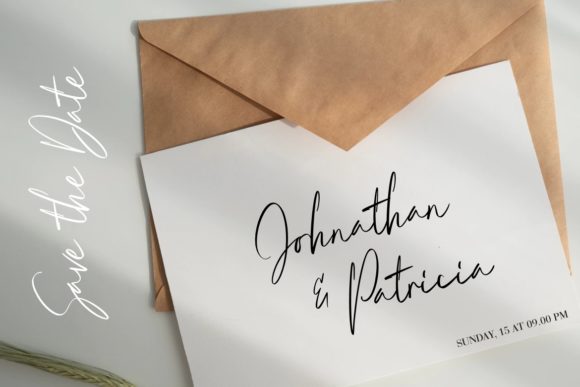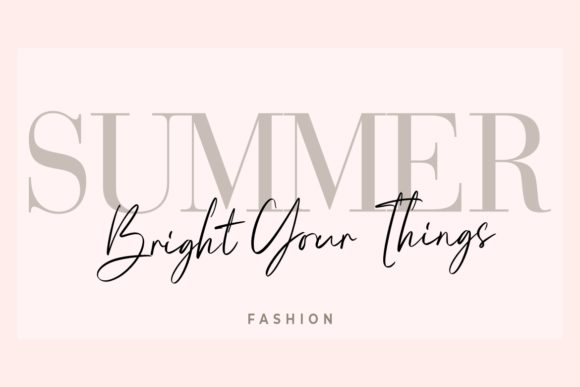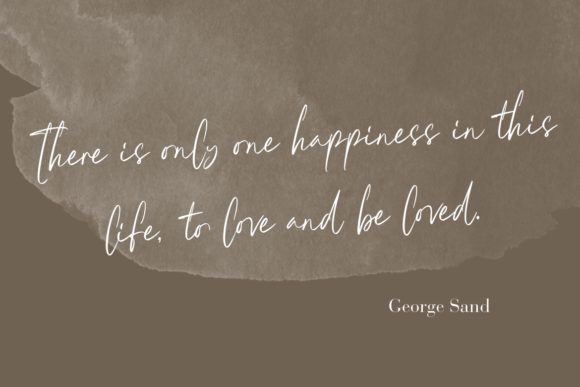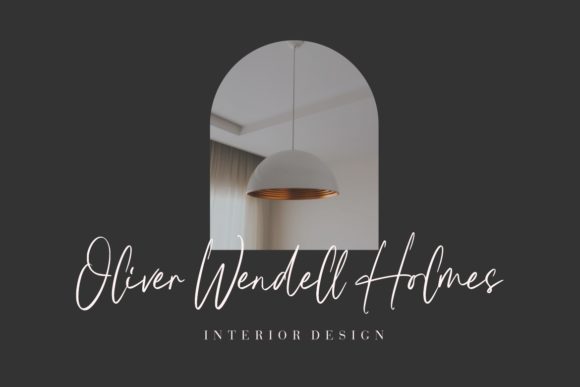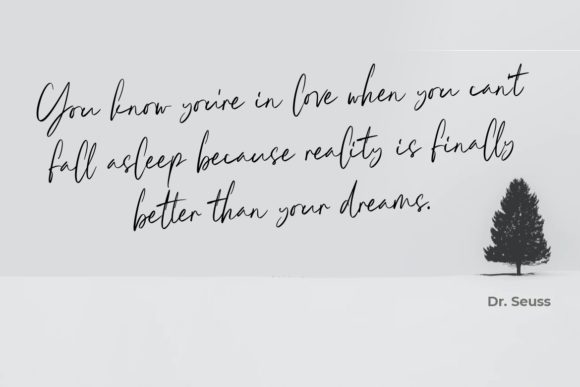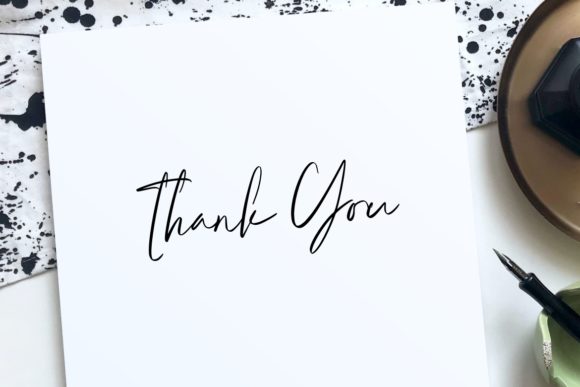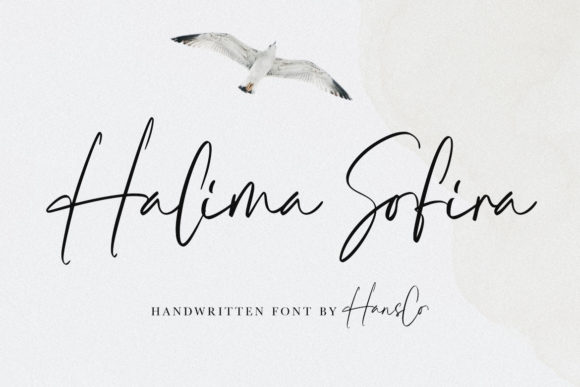
Introducing Halima Sofira Font: Elevate Your Designs with Elegance
Are you a designer or crafter looking for a font that exudes style and sophistication? Look no further than Halima Sofira, a beautiful handwritten font that is perfect for adding a touch of elegance to your designs. In this article, we’ll take a closer look at Halima Sofira and explore its features, uses, and benefits.
What is Halima Sofira Font?
Halima Sofira is a stylish and refined handwritten font that is designed to add a personal touch to your designs. Its elegant and cursive script makes it perfect for a variety of projects, including wedding invitations, thank you cards, weddings, greeting cards, logos, and more.
Key Features of Halima Sofira Font
- Handwritten style: Halima Sofira has a beautiful, handwritten style that gives your designs a personal and unique touch.
- Elegant and refined: The font’s elegant and refined design makes it perfect for formal and informal projects.
- Versatile: Halima Sofira can be used for a wide range of designs, from wedding invitations to logos and greeting cards.
- Easy to read: The font is clear and easy to read, making it perfect for designs that require a high level of legibility.
Uses of Halima Sofira Font
Halima Sofira is a versatile font that can be used for a variety of designs, including:
- Wedding invitations: Add a touch of elegance to your wedding invitations with Halima Sofira.
- Thank you cards: Express your gratitude with beautifully designed thank you cards featuring Halima Sofira.
- Greeting cards: Create stunning greeting cards for special occasions, such as birthdays, anniversaries, and holidays.
- Logos: Use Halima Sofira to create a unique and elegant logo for your business or brand.
- Stationery: Add a personal touch to your stationery with Halima Sofira.
Benefits of Using Halima Sofira Font
Using Halima Sofira font offers several benefits, including:
- Unique and personalized designs: Halima Sofira’s handwritten style gives your designs a unique and personalized touch.
- Elegance and sophistication: The font’s elegant and refined design adds a touch of sophistication to your designs.
- High-quality design: The font is designed to high-quality standards, ensuring that your designs look professional and polished.
Tips for Using Halima Sofira Font
Here are some tips for using Halima Sofira font:
- Pair with other fonts: Experiment with pairing Halima Sofira with other fonts to create unique and interesting combinations.
- Use for headlines and titles: Halima Sofira is perfect for headlines and titles, adding a touch of elegance and sophistication to your designs.
- Experiment with colors: Try out different colors and color combinations to add depth and interest to your designs.
Halima Sofira font is a beautiful and elegant handwritten font that is perfect for designers and crafters looking to add a touch of sophistication to their designs. With its versatile design, ease of use, and high-quality standards, Halima Sofira is a great choice for a wide range of projects. Whether you’re creating wedding invitations, greeting cards, or logos, Halima Sofira is sure to elevate your designs and make them stand out.